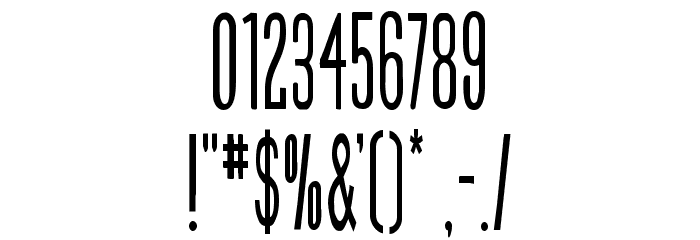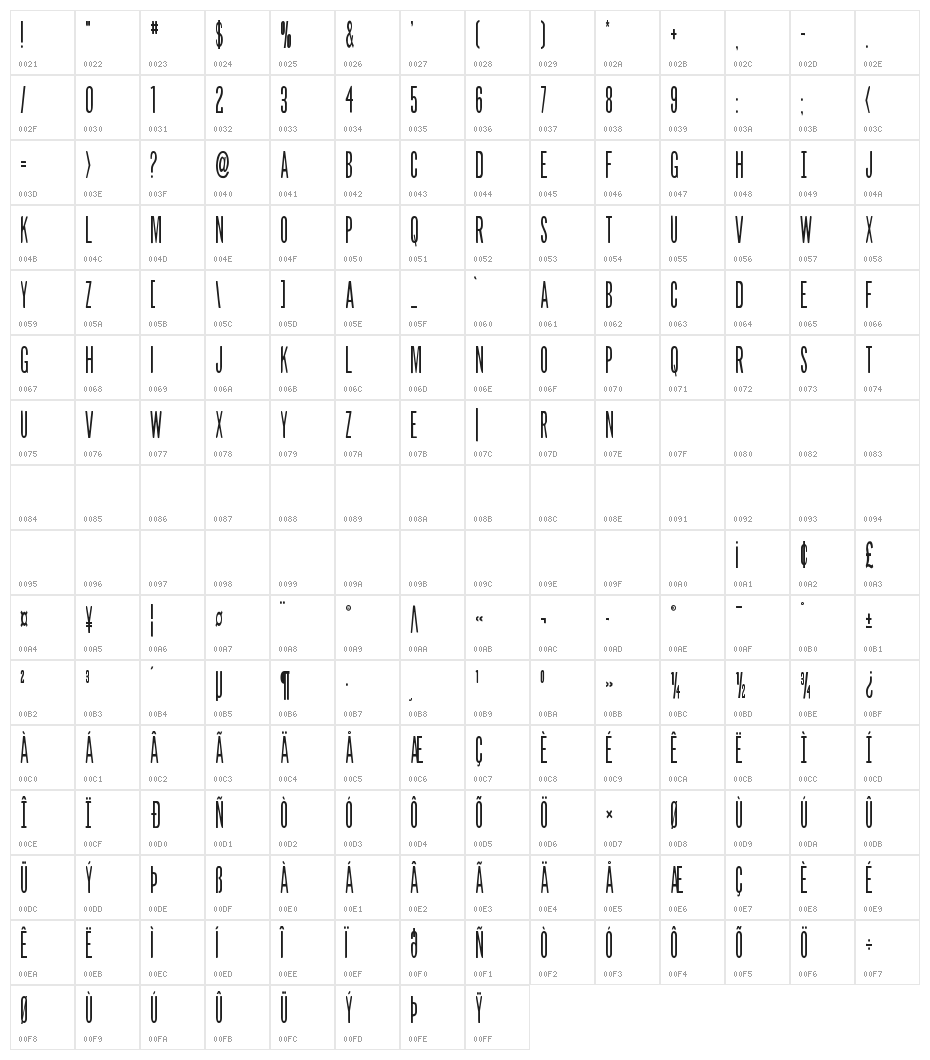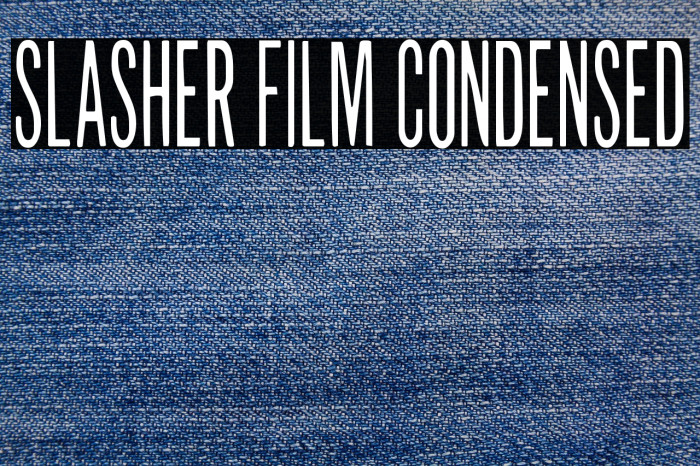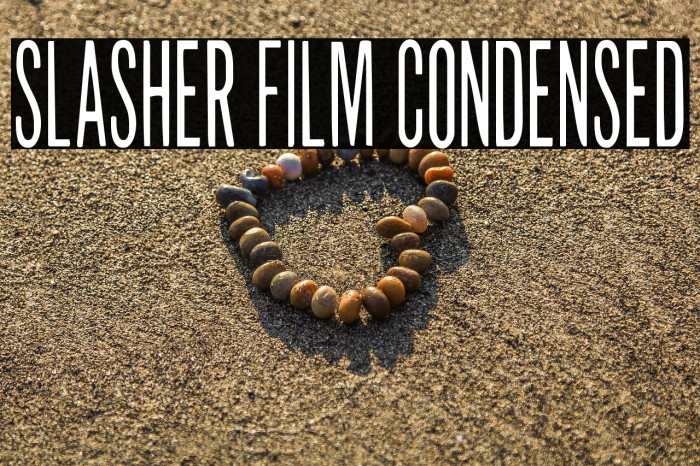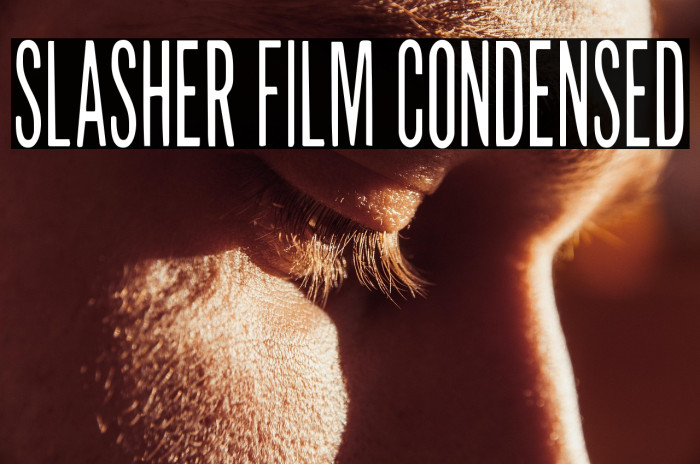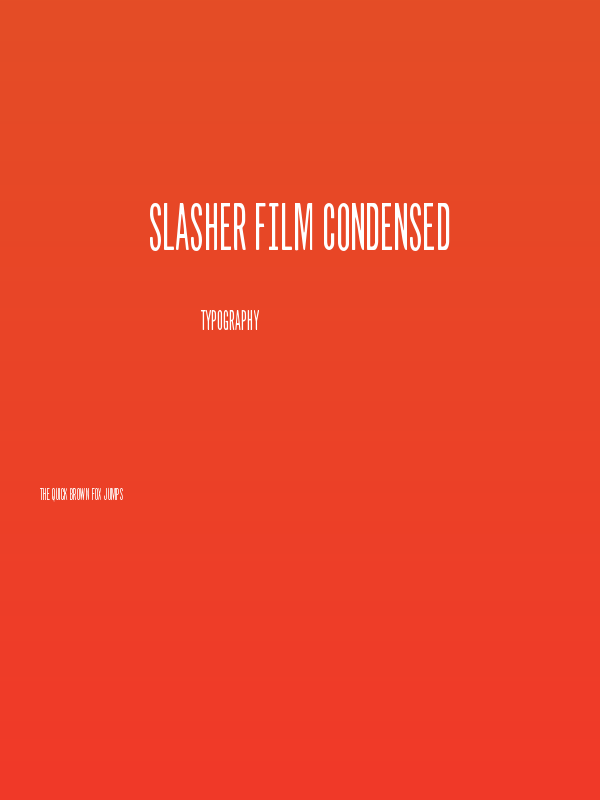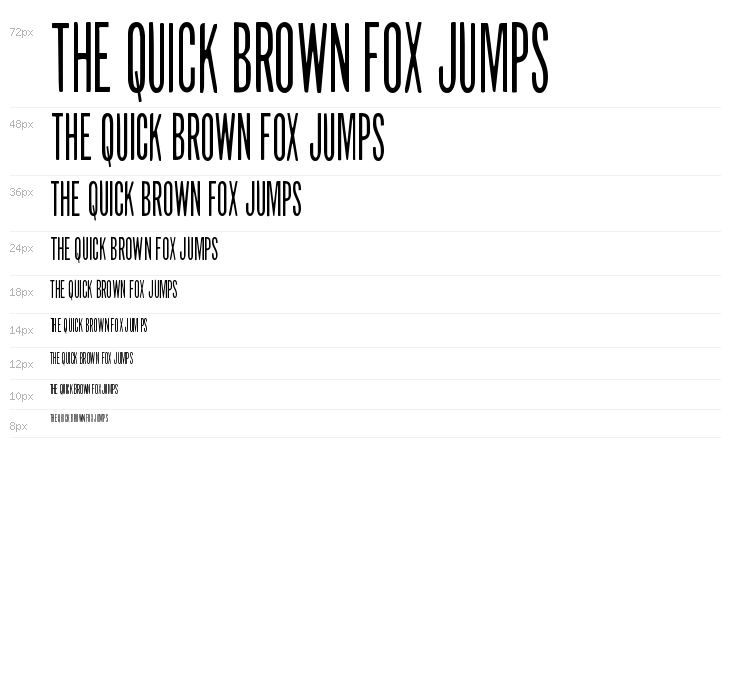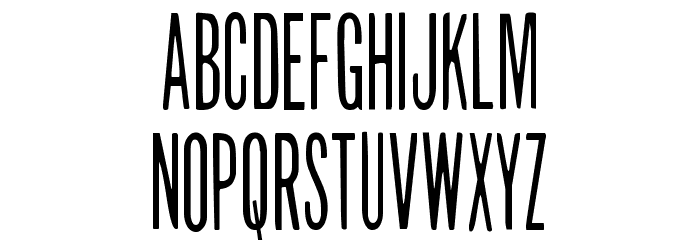
Slasher Film Condensed Font
Slasher Film Condensed Description
This font features a tall, narrow design with a condensed structure, giving it a sleek and modern appearance. The characters are uniformly aligned with consistent stroke widths, creating a clean and professional look. The uppercase letters are prominent and elongated, while the lowercase letters maintain the same condensed style. The numerals are equally narrow, ensuring a cohesive aesthetic across all characters. Special characters are included, matching the overall style with a minimalist and straightforward design. This font is ideal for projects that require a bold yet refined statement.
| Proposed Projects | Ideal for movie posters, book covers, branding, and advertising where a bold statement is needed. |